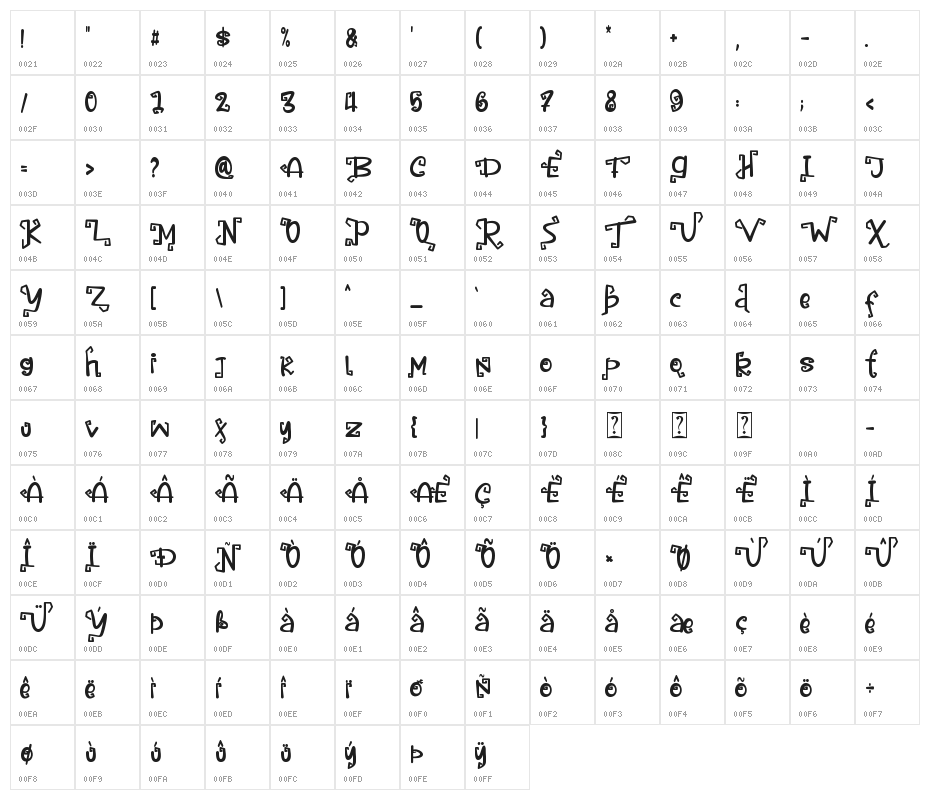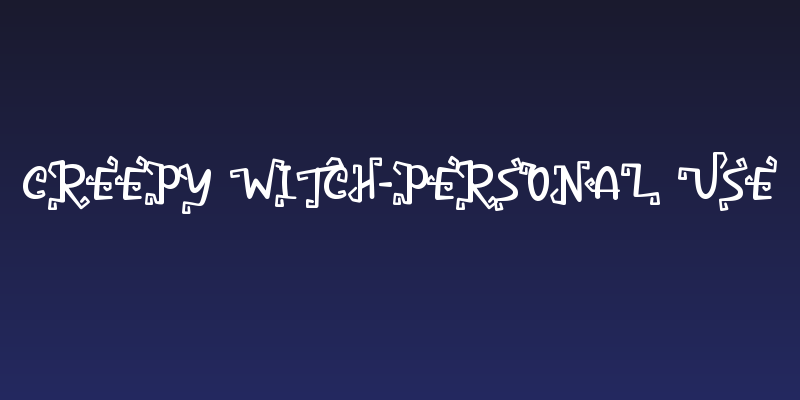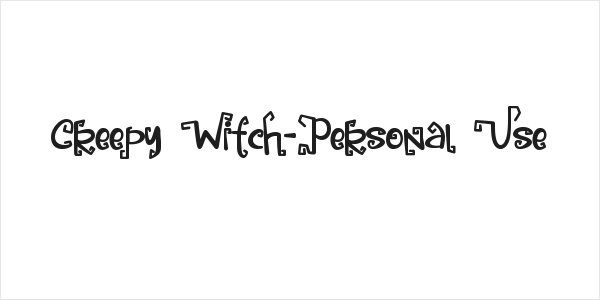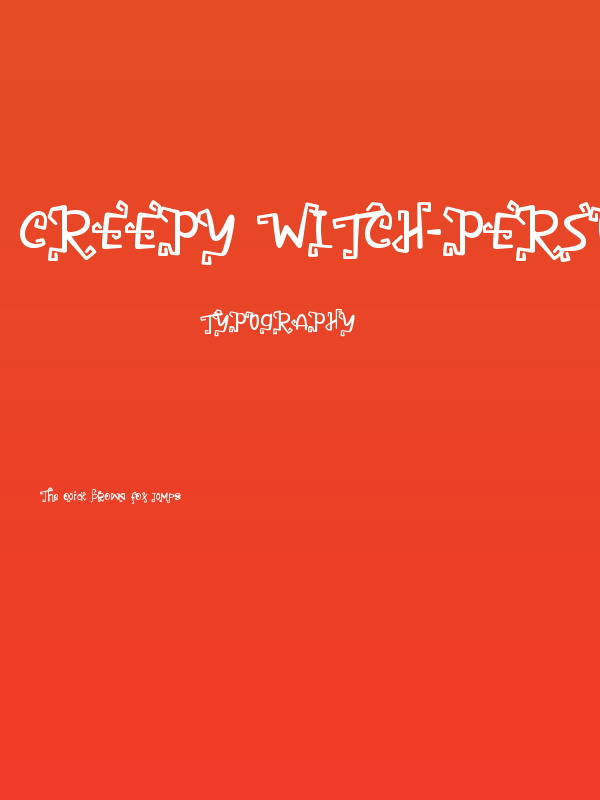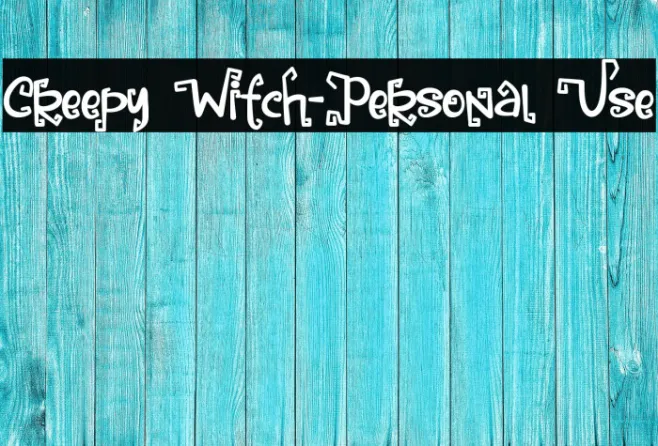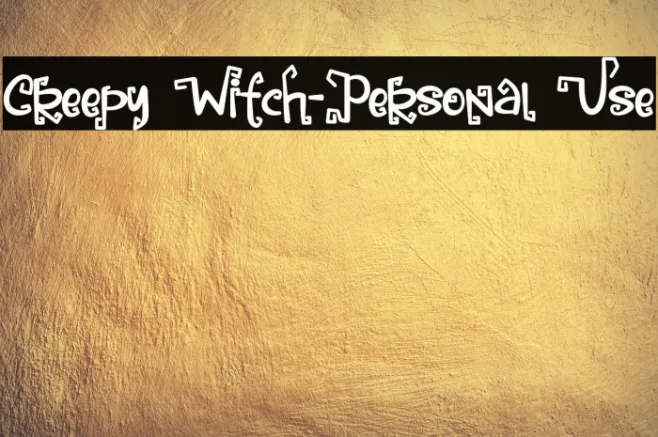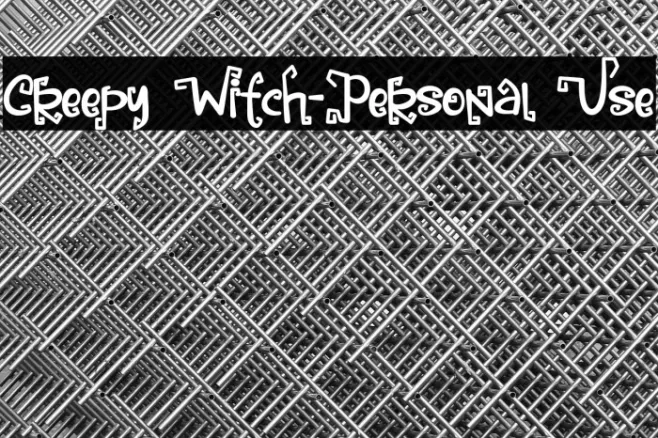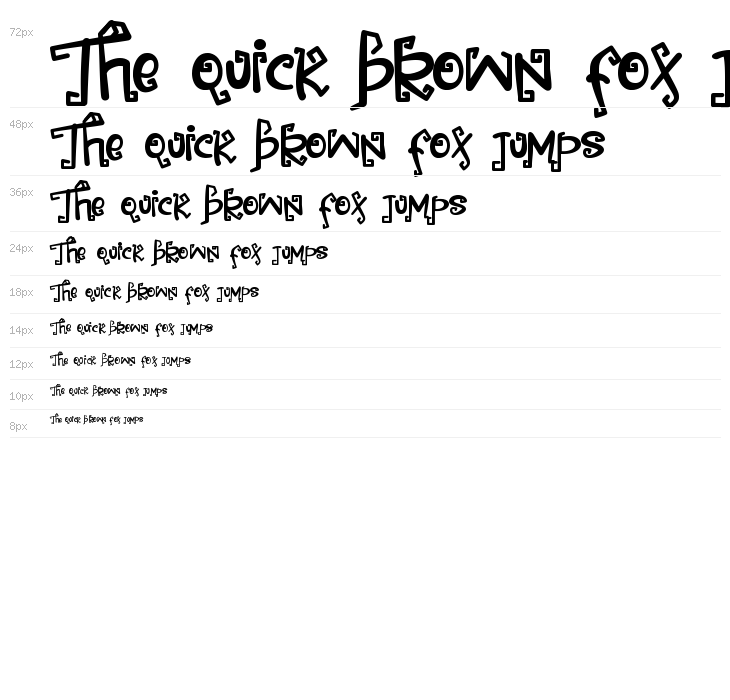
Creepy Witch-Personal Use Font
Creepy Witch-Personal Use Description
This font features a whimsical and quirky design, characterized by its playful and irregular shapes. Each letter has a unique, hand-drawn appearance with exaggerated curves and angles, giving it a slightly eerie yet charming personality. The uppercase and lowercase letters maintain a consistent style, with the uppercase being more pronounced and the lowercase offering a softer touch. Numbers and special characters follow the same playful theme, ensuring a cohesive look across all text. The font's overall style is reminiscent of a spooky, magical theme, making it ideal for creative and themed projects.
| Use Case | Headlines, Logos, Themed Events |
| Proposed Projects | Ideal for Halloween-themed designs, children's books, party invitations, and creative branding. |